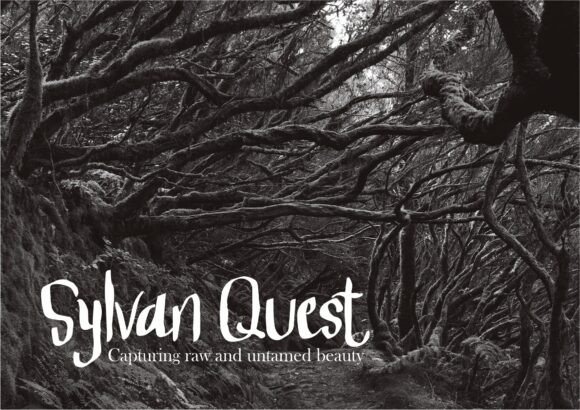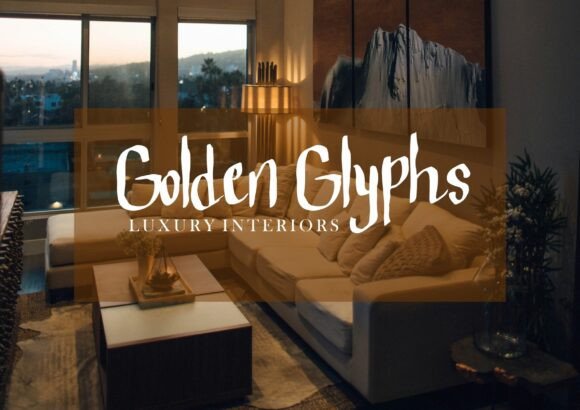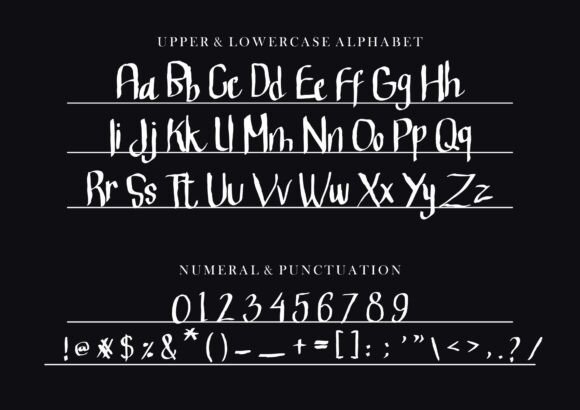
Introduction to Rasinky Font
Do you remember that moment when you’re working on a creative project and you just can’t seem to find the perfect font to match your vision? The words, the emotions, the feeling – it all seems to fall flat without the right typography. For designers, this can be a frustrating and time-consuming process, especially when you’re working on a tight deadline.
That’s why we’re excited to introduce you to the Rasinky Font, a bold and expressive handwritten font with a touch of rustic charm. This high-quality font is inspired by ink brush strokes, giving it a natural and organic feel that’s perfect for projects that need a personal, artistic, and handcrafted touch. Whether you’re working on a design project that requires a free download or simply looking for a reliable design resource, the Rasinky Font is sure to impress.
With its transparent background and versatility, the Rasinky Font is a valuable addition to any designer’s toolkit. Whether you’re a seasoned pro or just starting out, this font is sure to help you bring your creative vision to life.
Key Features of Rasinky Font
- Unique, hand-drawn style with transparent background for versatile use in various designs.
- Perfect for creative professionals and hobbyists alike, offering a unique touch to any design project.
Honest Review: Rasinky Font
I recently stumbled upon the Rasinky Font, and I must say, it’s been a game-changer for my creative projects. This free download has been a valuable addition to my design resource library, offering a unique and eye-catching style that sets my work apart.
- ✨ High quality design: The Rasinky Font is crisp and clear, making it perfect for printing or digital use.
- ✨ Versatility: I’ve used this font for a variety of creative projects, from branding to editorial design, and it’s always performed well.
- ✨ Transparent background: The font’s transparent background makes it easy to work with, allowing me to layer it over images or colors without any issues.
- ⚠️ Limited character set: While the font is extensive, it’s not a complete set, which can be a problem for projects that require a full range of characters.
- ⚠️ Not suitable for all audiences: The Rasinky Font’s bold and playful style may not be suitable for more formal or conservative projects.
Overall, I’m thoroughly impressed with the Rasinky Font. It’s a valuable addition to any designer’s library, offering a unique and high-quality design solution for creative projects. With a little creativity, the limitations of this font can be easily overcome, making it a must-have resource for any design enthusiast.
The Rasinky Font is a free design resource ideal for creative projects that require a high-quality, unique font. This guide will walk you through the process of using the Rasinky Font in various design applications.
Here are some tips to help you get the most out of the Rasinky Font:
- Use the Rasinky Font on a transparent background to create a visually appealing design.
- Combine the Rasinky Font with other design elements to create a unique and creative project.
The Rasinky Font is ideal for various creative projects, including: